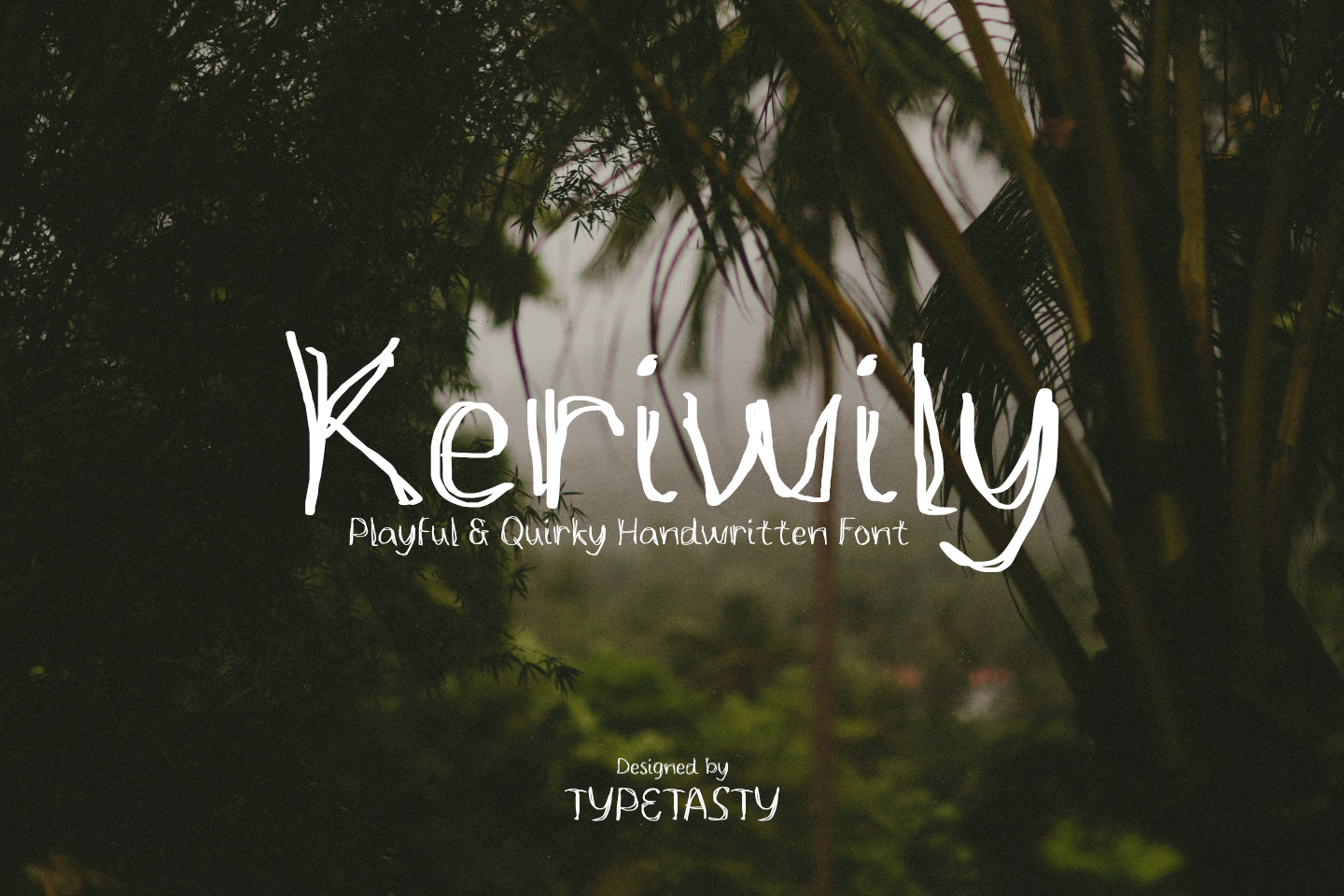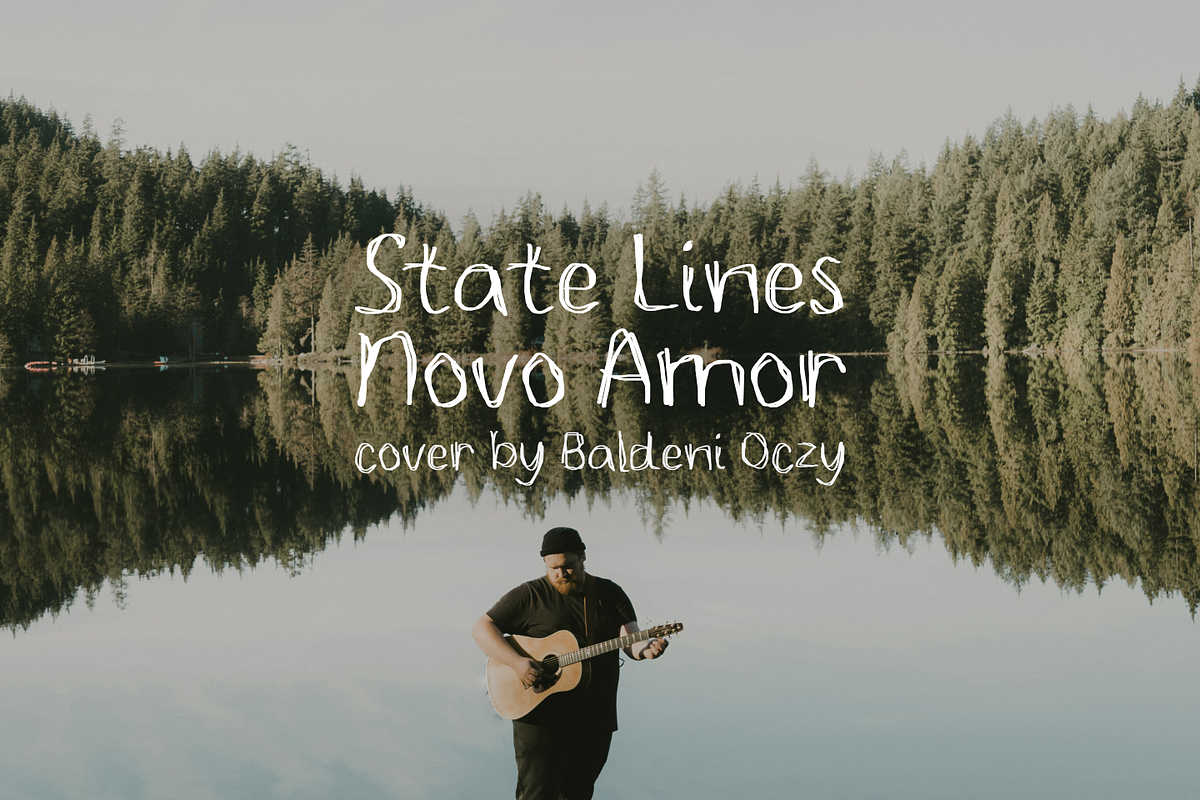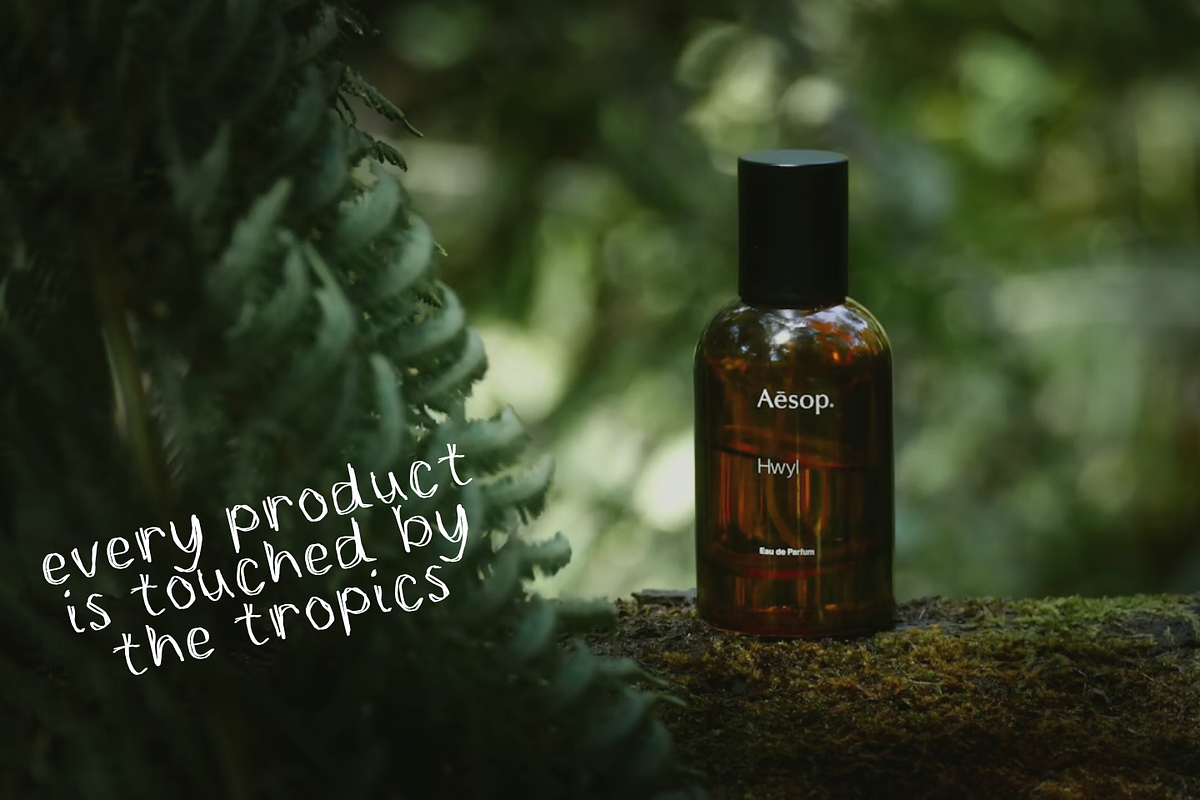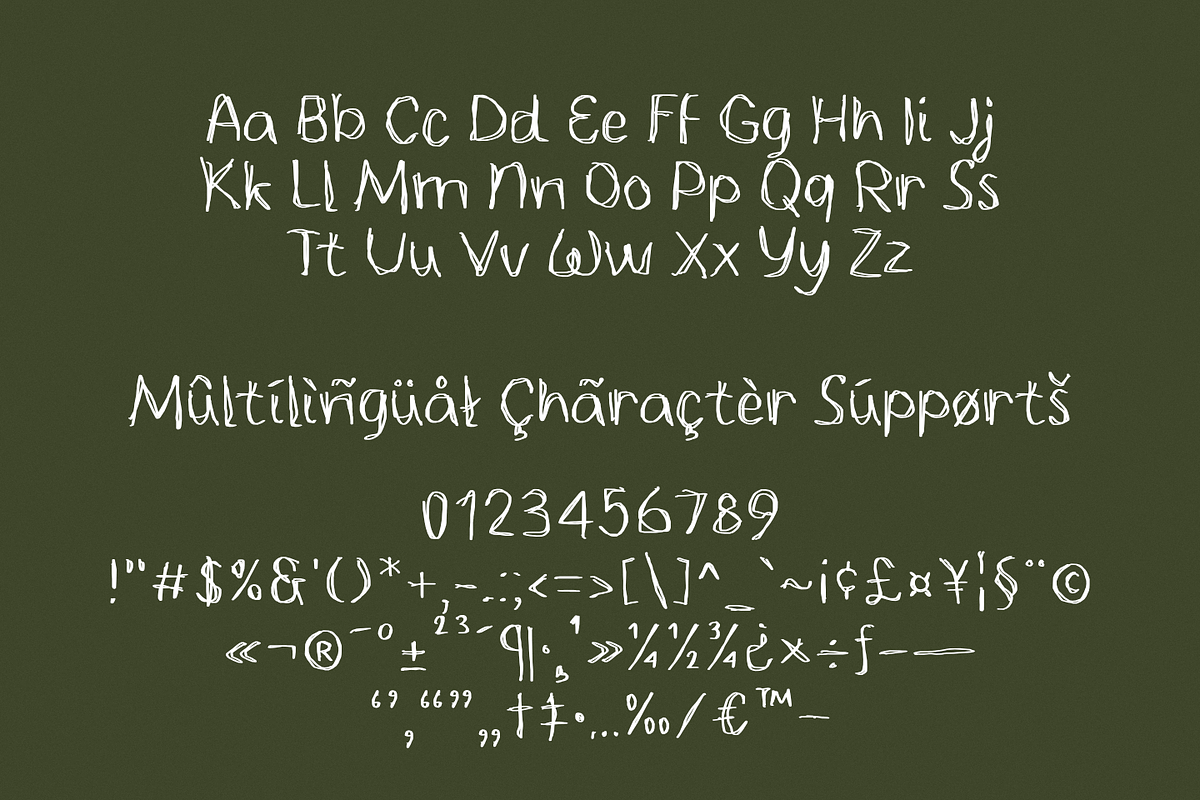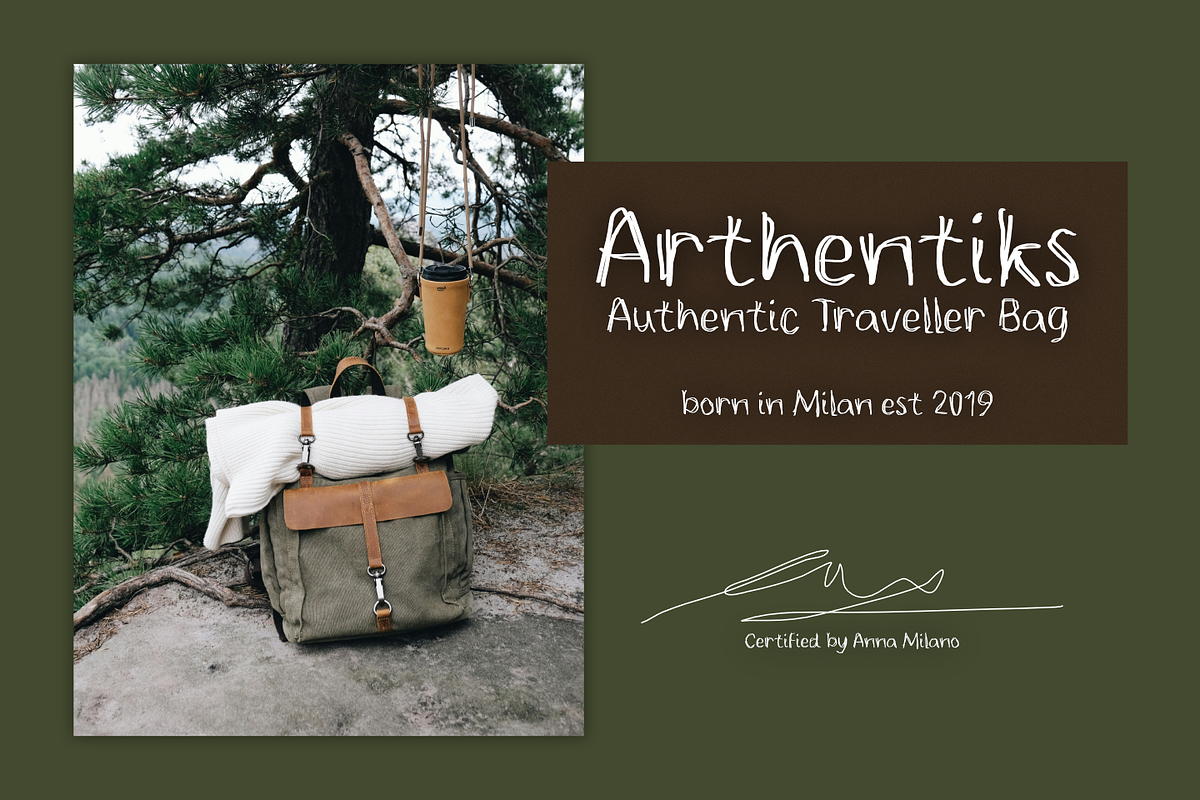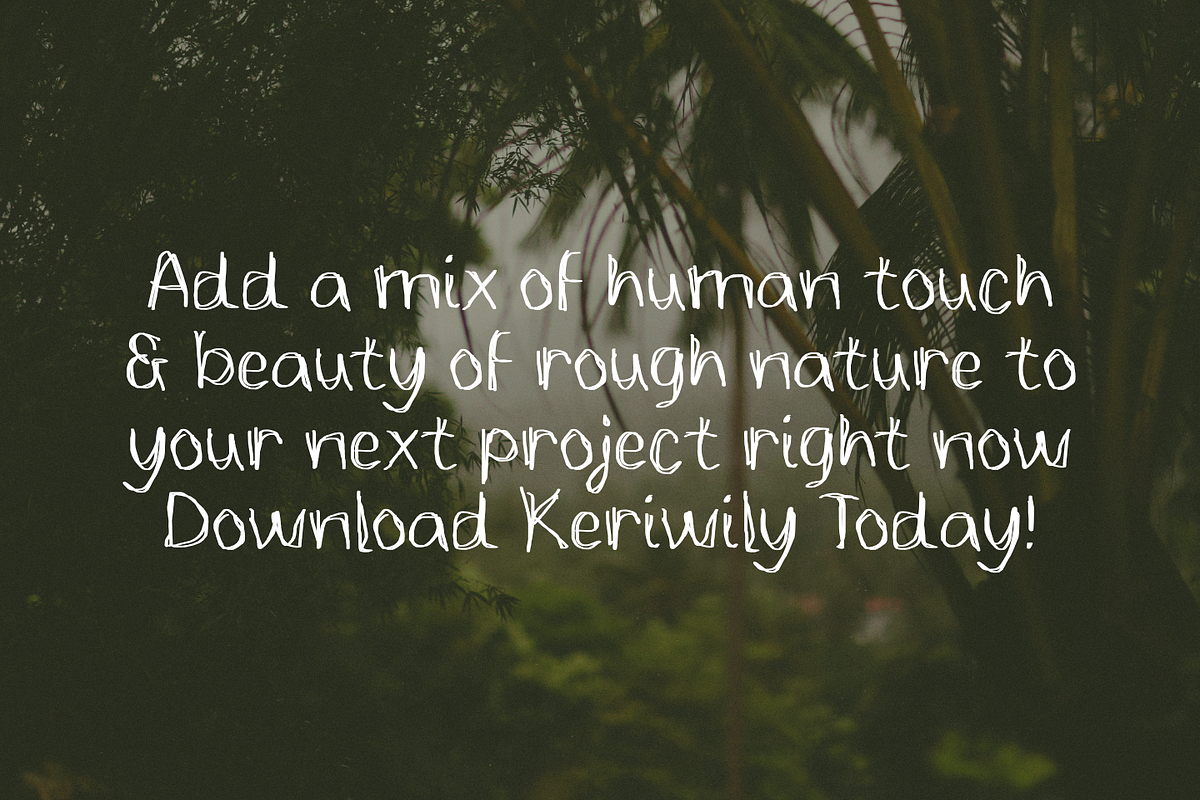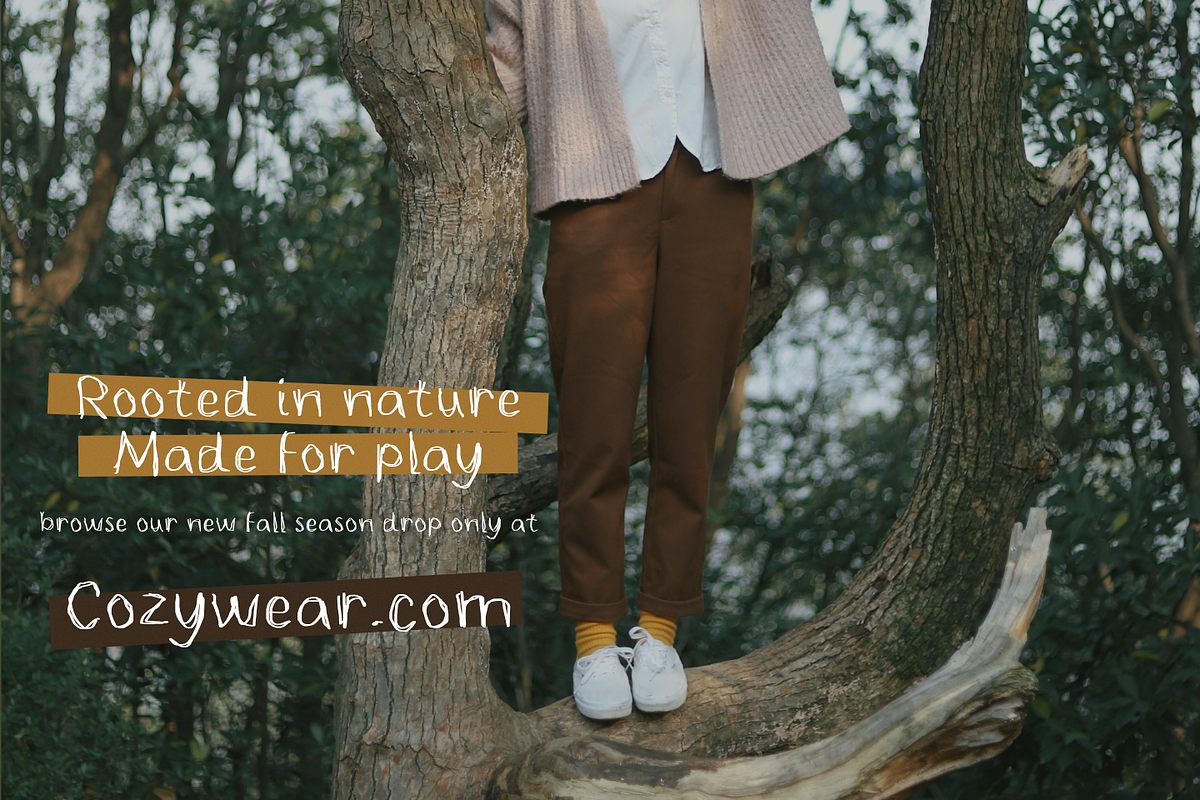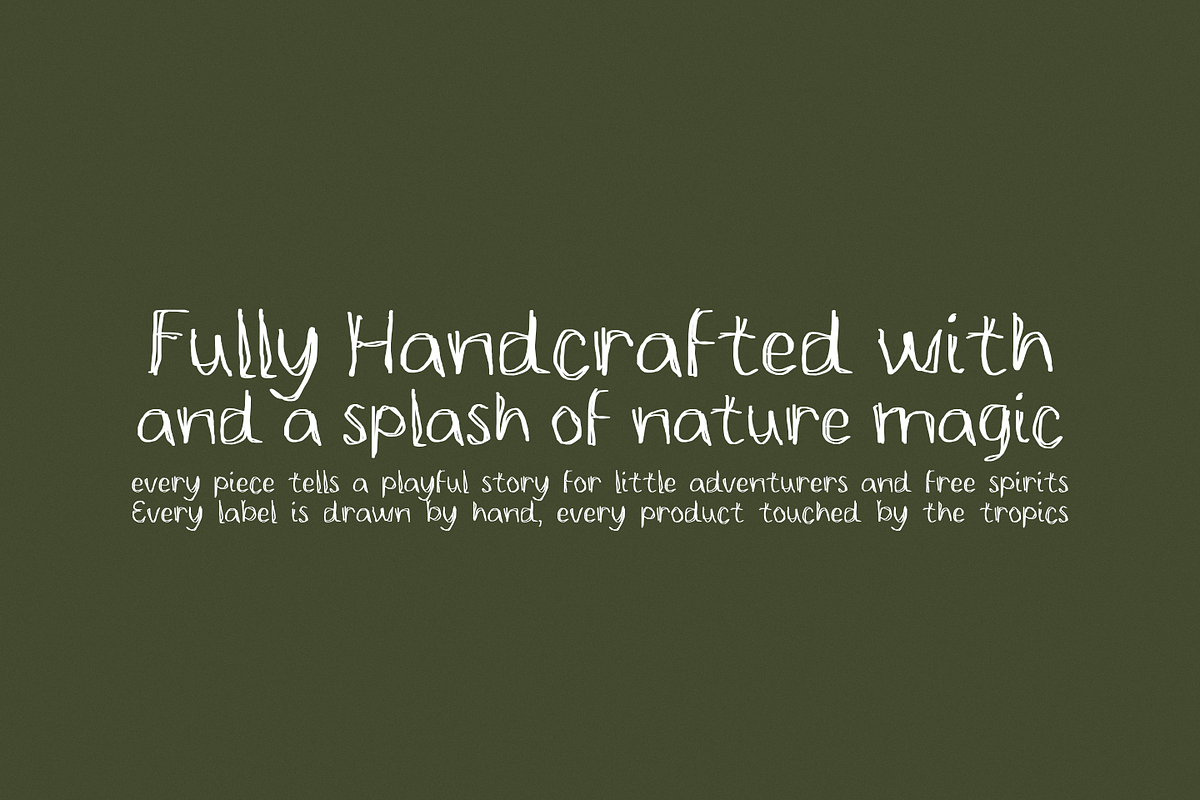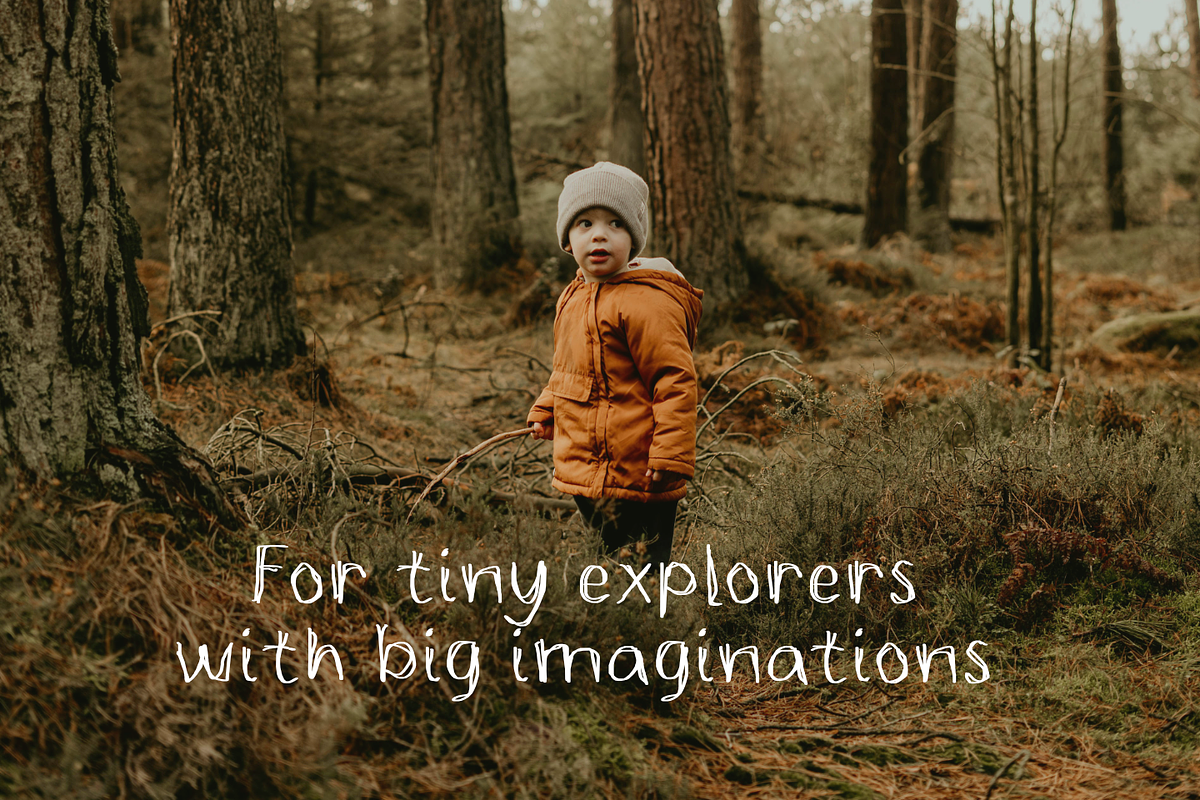
Keriwily – Quirky Handwritten Font
Keriwily is a playful handwritten font that brings a natural, organic vibe to your designs. Its irregular strokes and free-flowing style are perfect for nature branding, lifestyle blogs, product packaging, and children’s content. Whether you’re creating for Instagram, a cozy book cover, or eco-friendly labels, Keriwily gives your project a heartfelt, human voice that stands out in a polished digital world. Keriwily is a wild yet charming handwritten font with an unfiltered, natural vibe. Its quirky, uneven strokes and spontaneous movement reflect the carefree spirit of hand-drawn typography. This font captures the heart of brands that want to feel earthy, artistic, and approachable.
Font style & energy: Playful, casual, untamed, organic
Market vibes: Ideal for Instagram graphics, eco-friendly product packaging, lifestyle blogs, handmade product labels, children’s stories
Letterform structure: Loose handwritten style, tall x-height, irregular strokes with an authentic flow
Best use cases:
Nature-themed branding
Adventure or travel content
Journaling templates
Inspirational quotes
Storybook covers
Handmade goods labels
Keriwily is the font that speaks the language of the wild—perfectly imperfect, effortlessly authentic. Whether you’re building a brand that celebrates nature, individuality, or storytelling, this font becomes your voice—raw, honest, and beautifully unrefined.
Organic Design, Instantly Relatable
Hand-drawn texture makes every word feel personal and crafted
Adds soul to minimalist branding or earthy lifestyle visuals
Emotion in Every Stroke
No sterile geometry just warmth, rhythm, and natural flow
Great for adding intimacy to logos, blogs, or social media graphics
Easy to Read, Fun to Use
Whimsical enough for kids, relaxed enough for grown-up lifestyle brands
A great go-to for branding and packaging that wants to stay down to earth